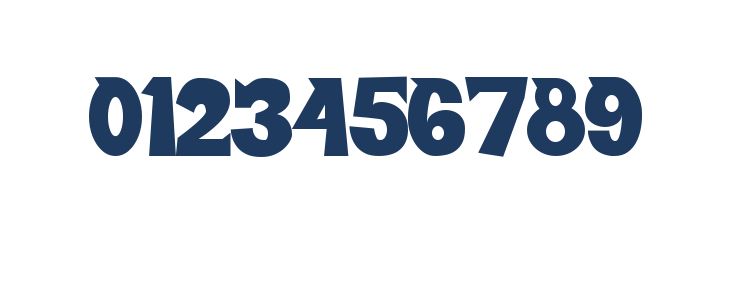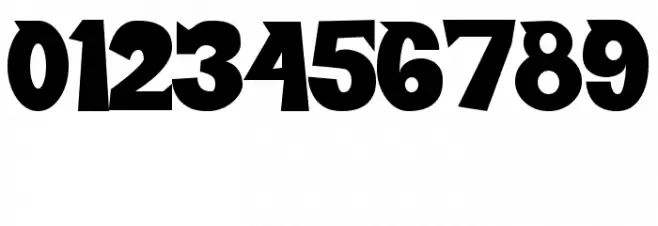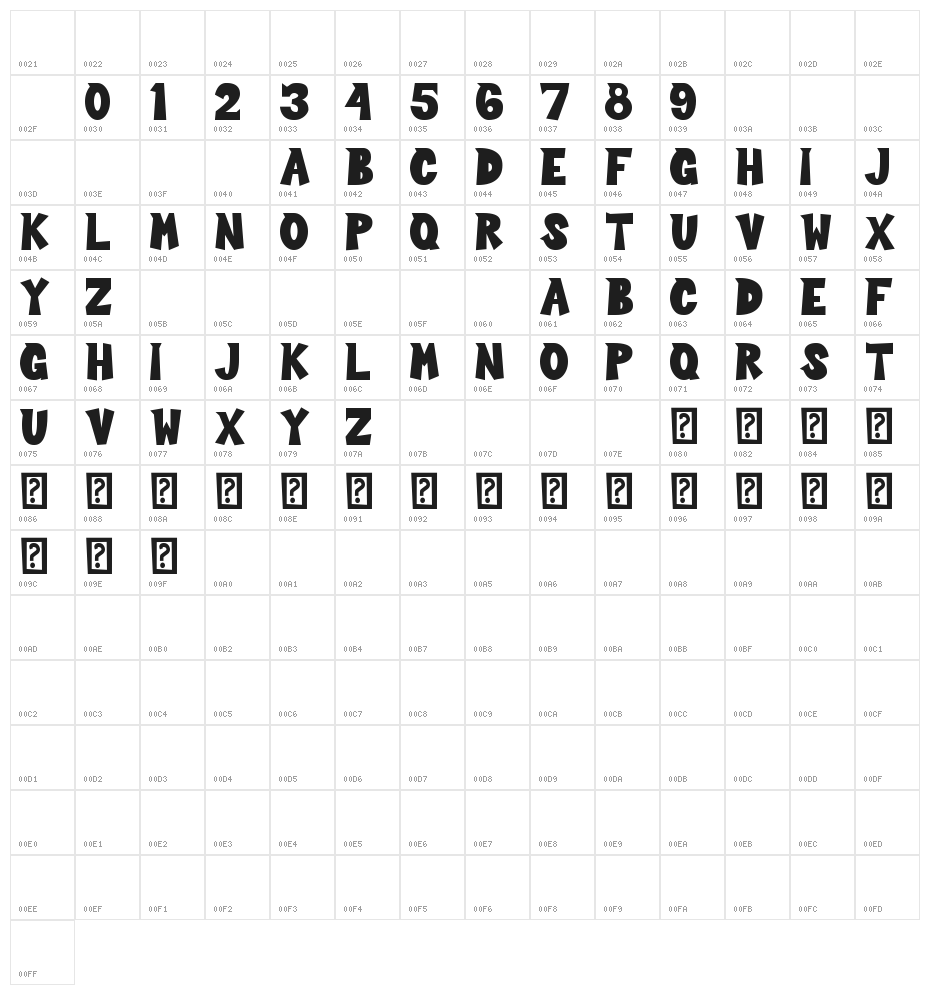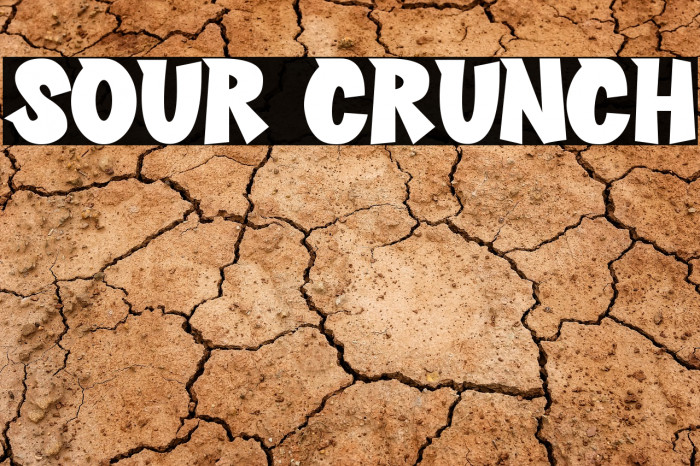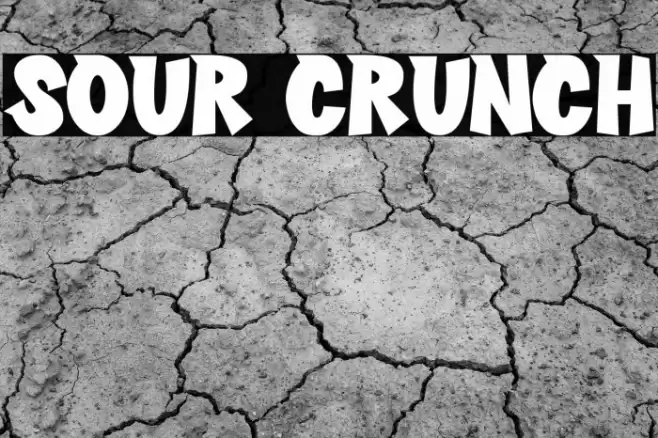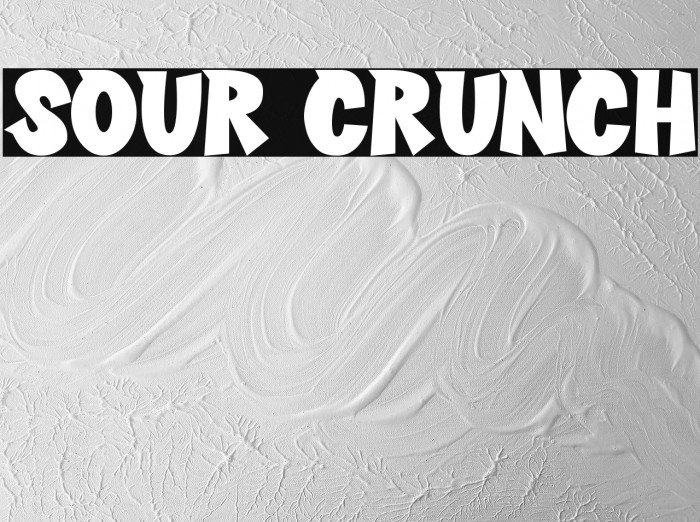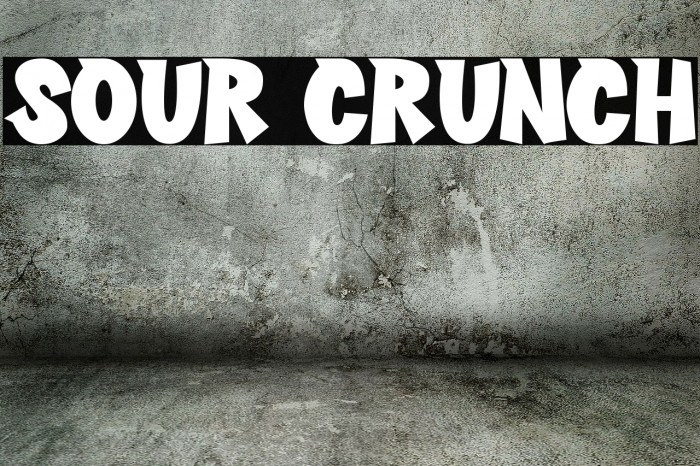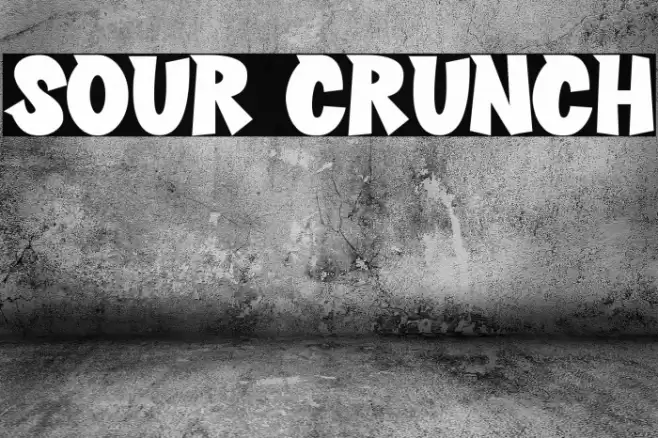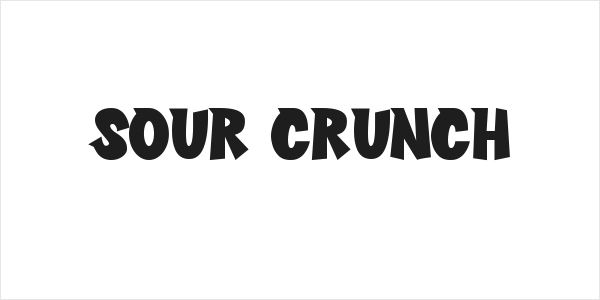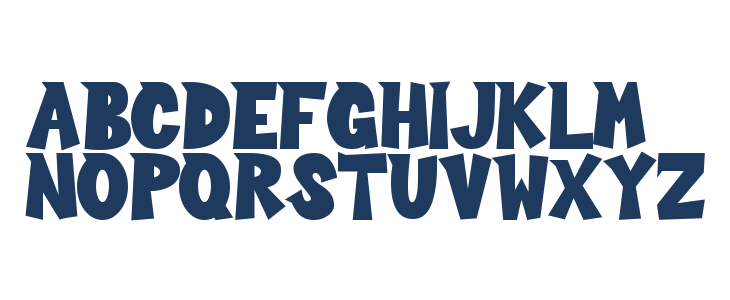
Sour Crunch Font
Sour Crunch Description
This font features a bold and playful design with exaggerated, uneven strokes that give it a dynamic and energetic appearance. The characters are slightly tilted and have a hand-drawn feel, adding a sense of whimsy and fun. The uppercase and lowercase letters maintain a consistent style, with thick, solid lines that create a strong visual impact. The numbers follow the same playful aesthetic, making them stand out. This font is ideal for projects that require a lively and informal touch, such as children's books, comic strips, or playful branding.
| Overall Style | Playful, Energetic, Whimsical |
| Proposed Projects | Ideal for children's books, comic strips, playful branding, and informal posters. |